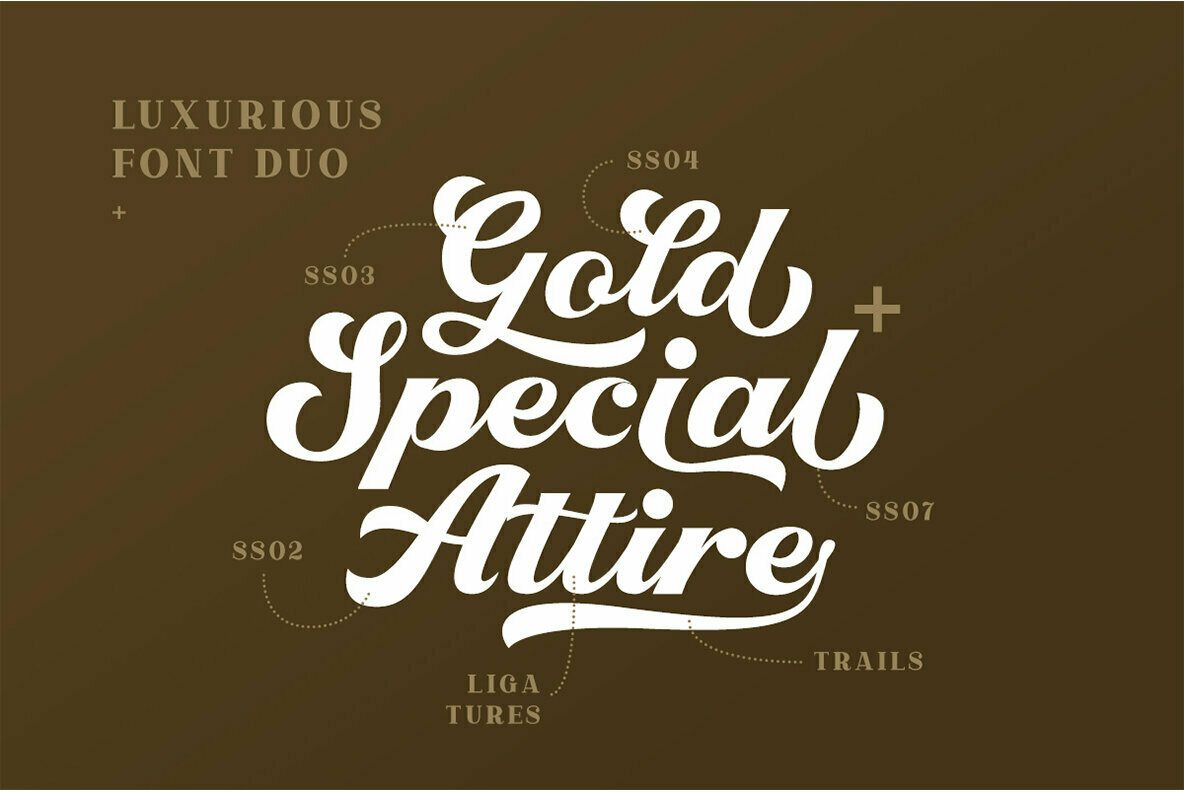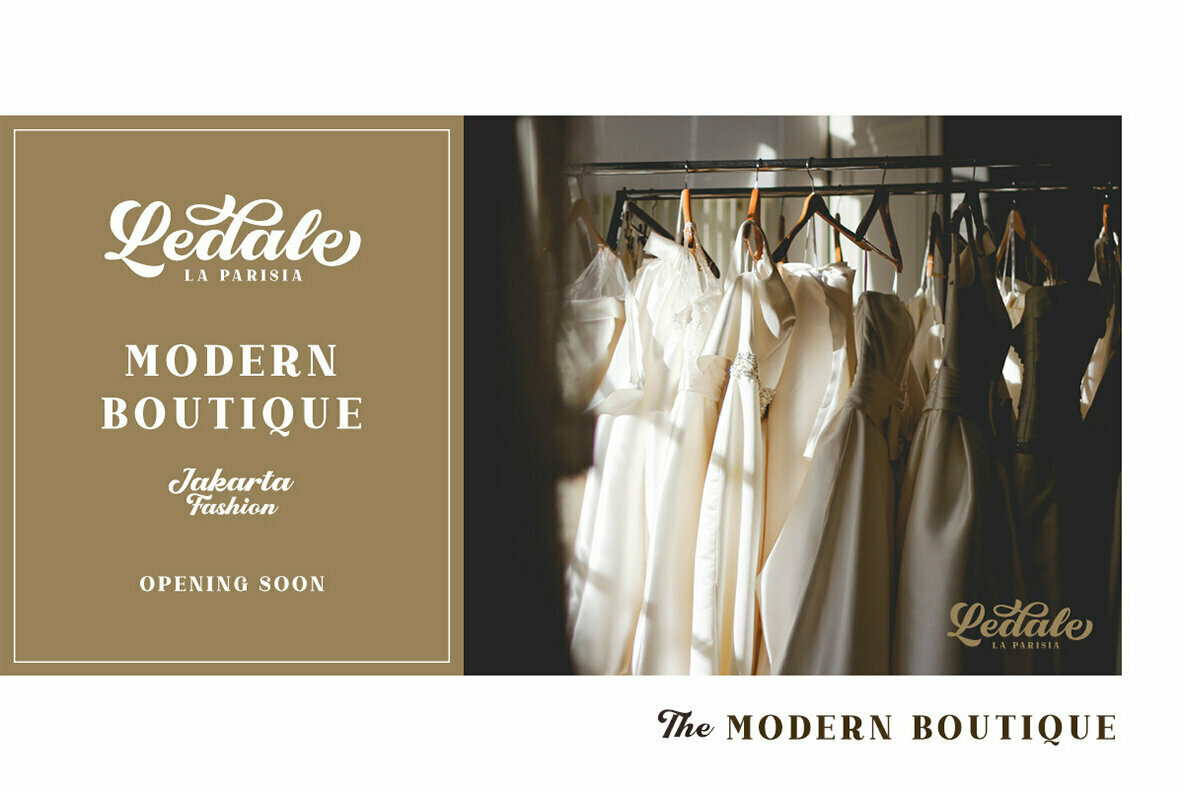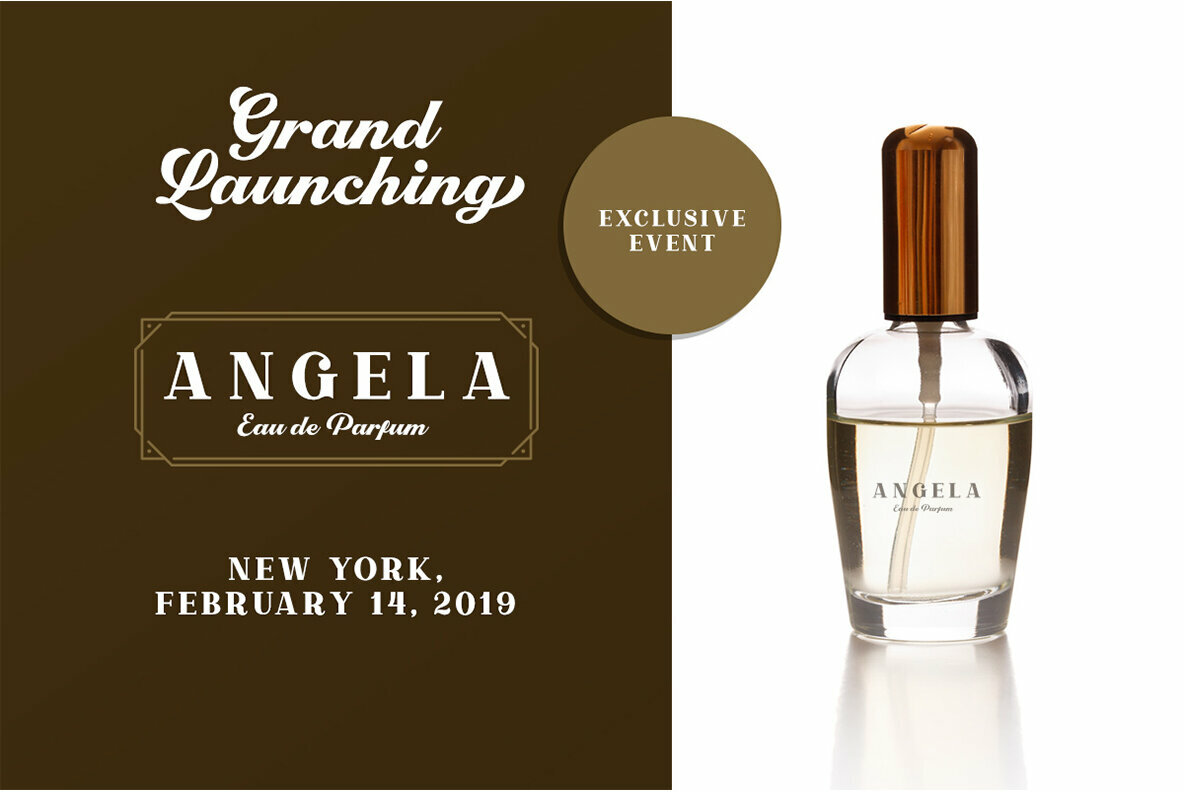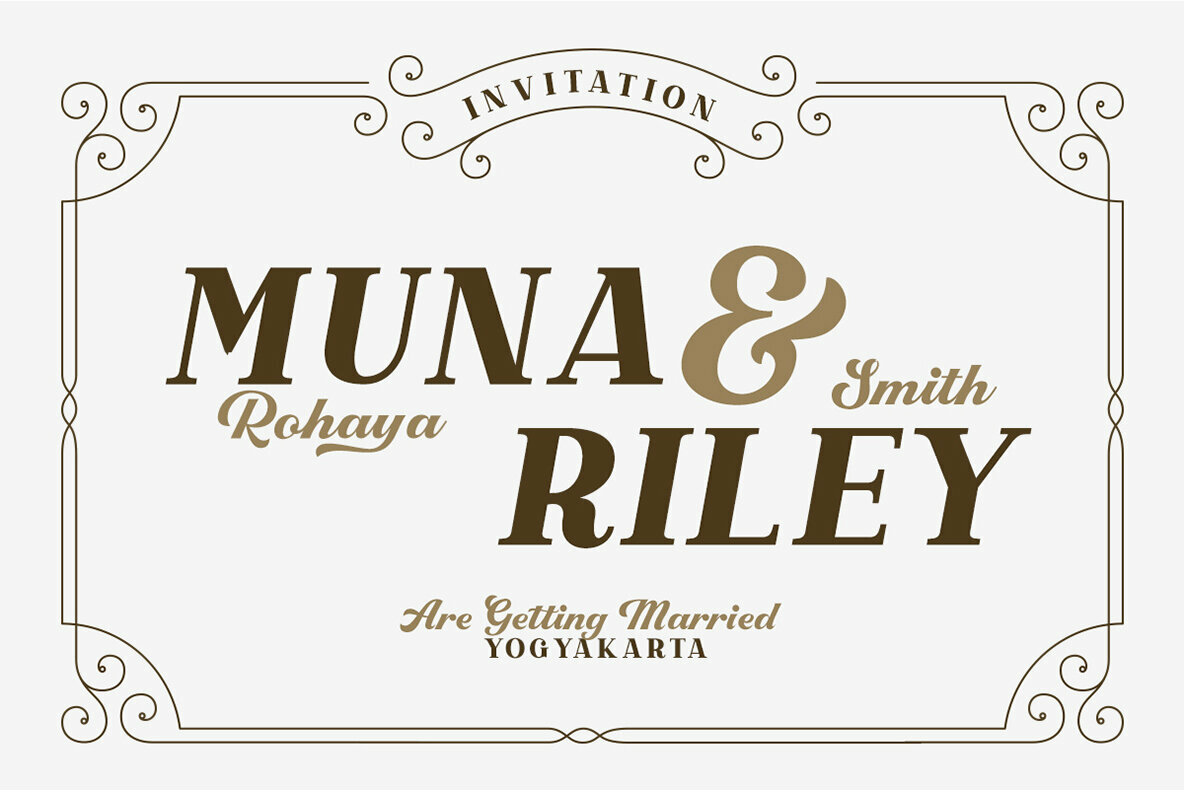
Righton Font Duo
Righton Script
Righton Serif
Immerse your designs in the refined elegance of Righton Font Duo. This luxurious pairing of script and serif typefaces melds sophistication with versatility, providing the perfect aesthetic for headlines, logos, apparel, and more. Formulated to complement each other seamlessly, these fonts add an air of class to any project, be it branding, packaging, or advertising.Righton Font Duo: Elegance Redefined
With Righton Font Duo, enhance the visual impact of your creative endeavors, blending luxury with functionality in a timeless design.